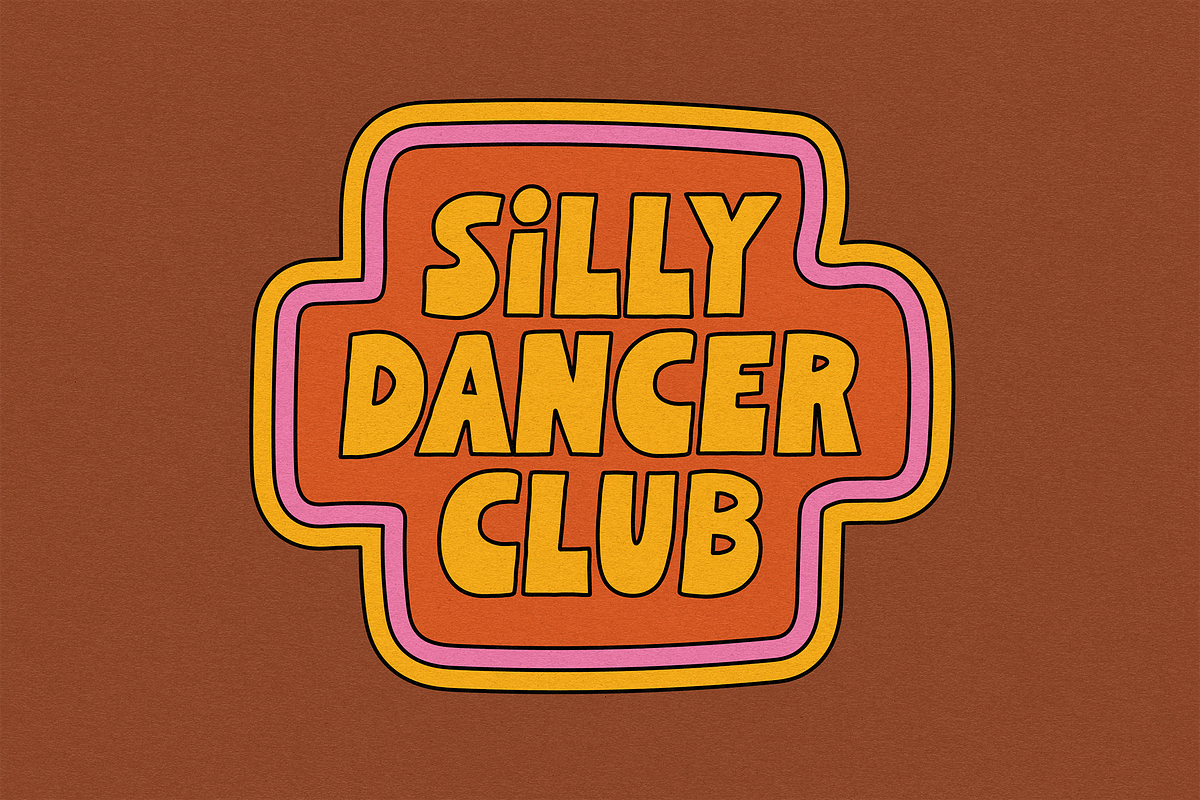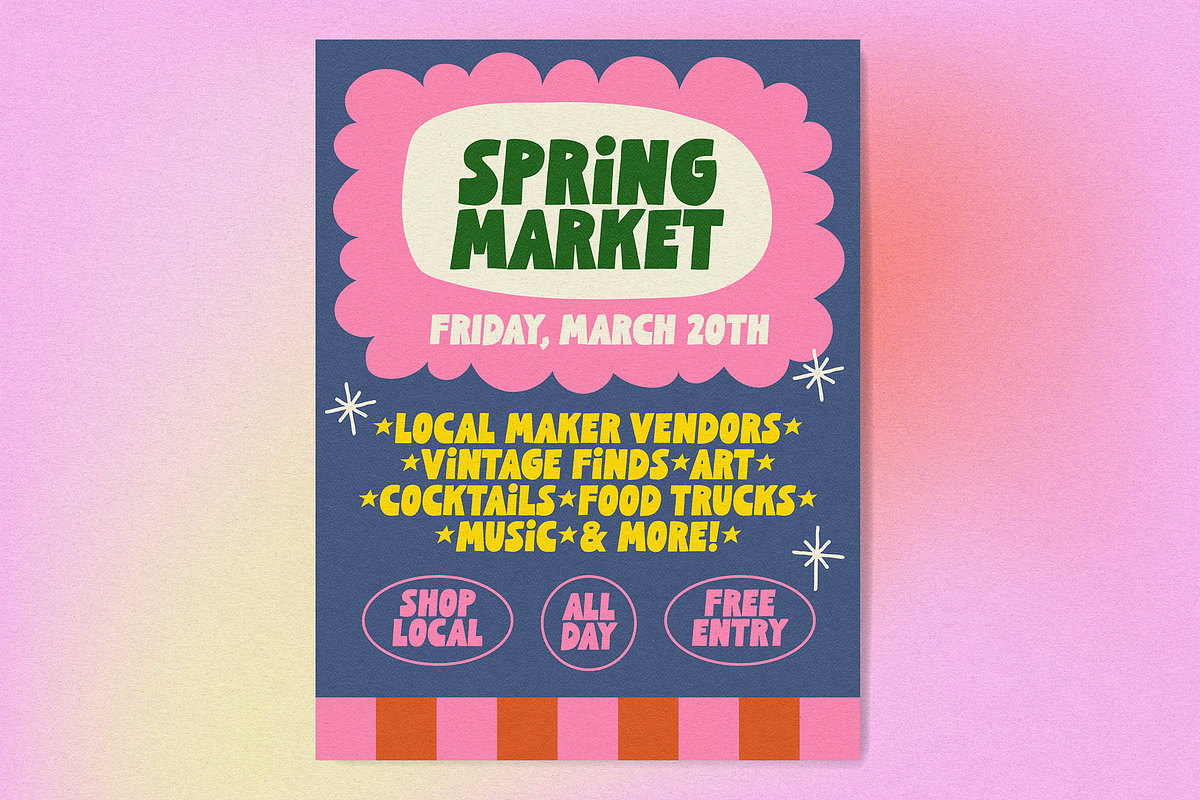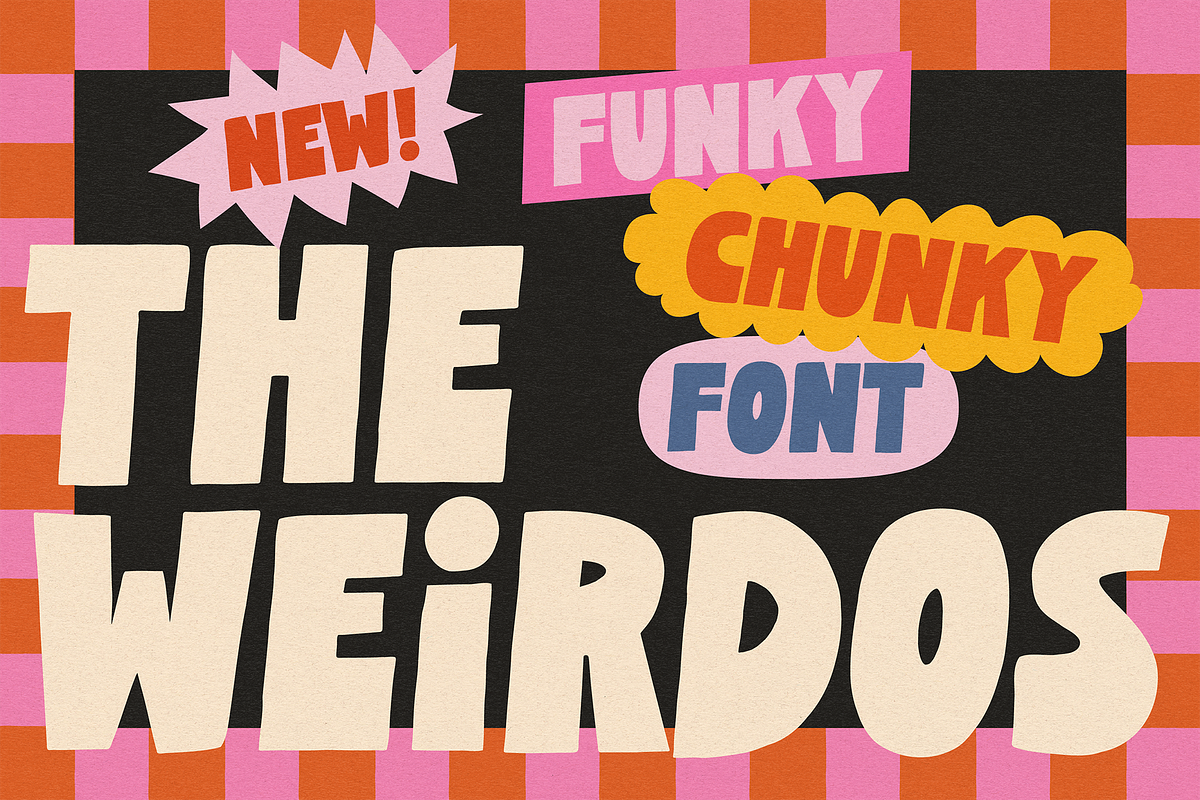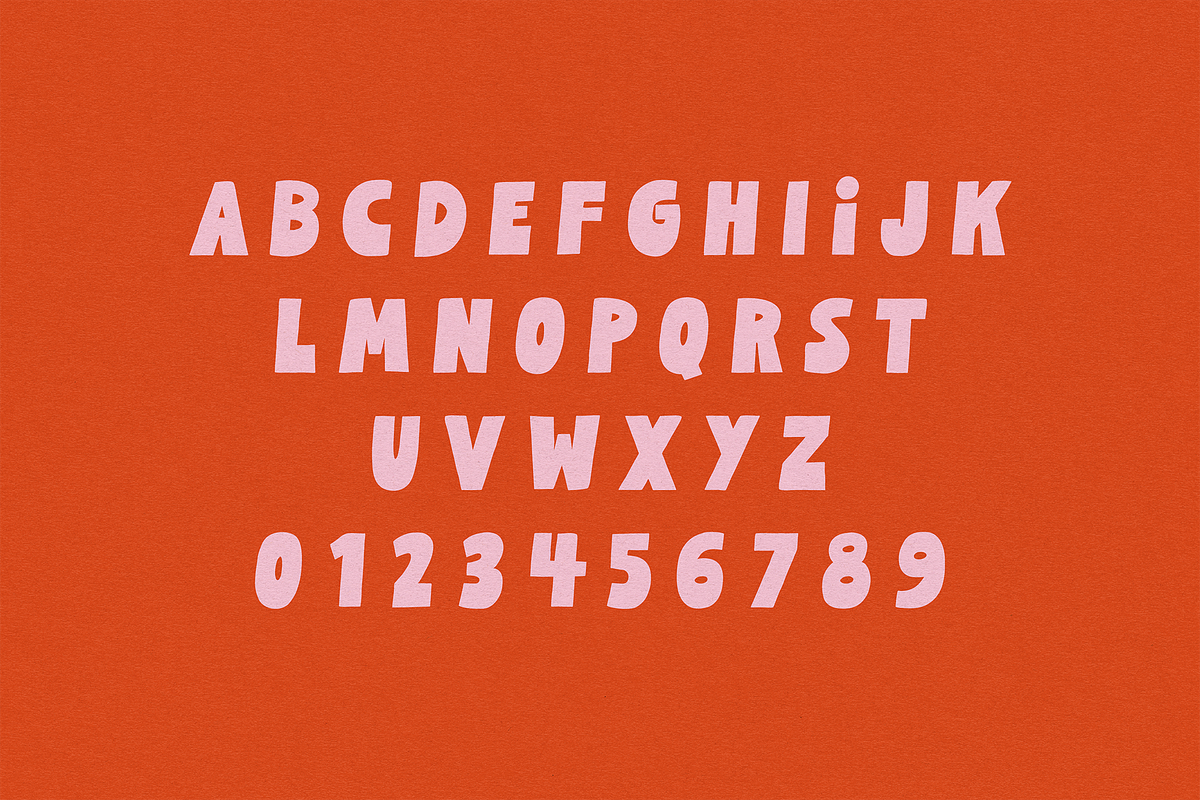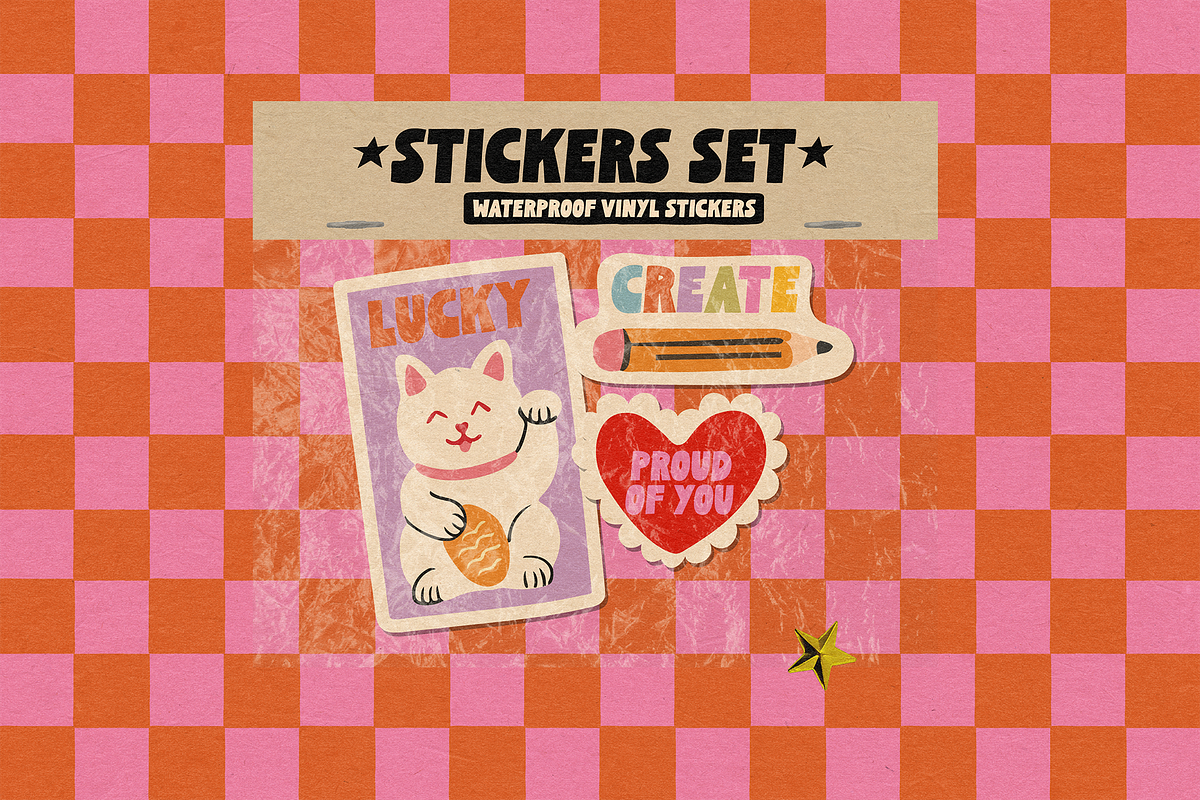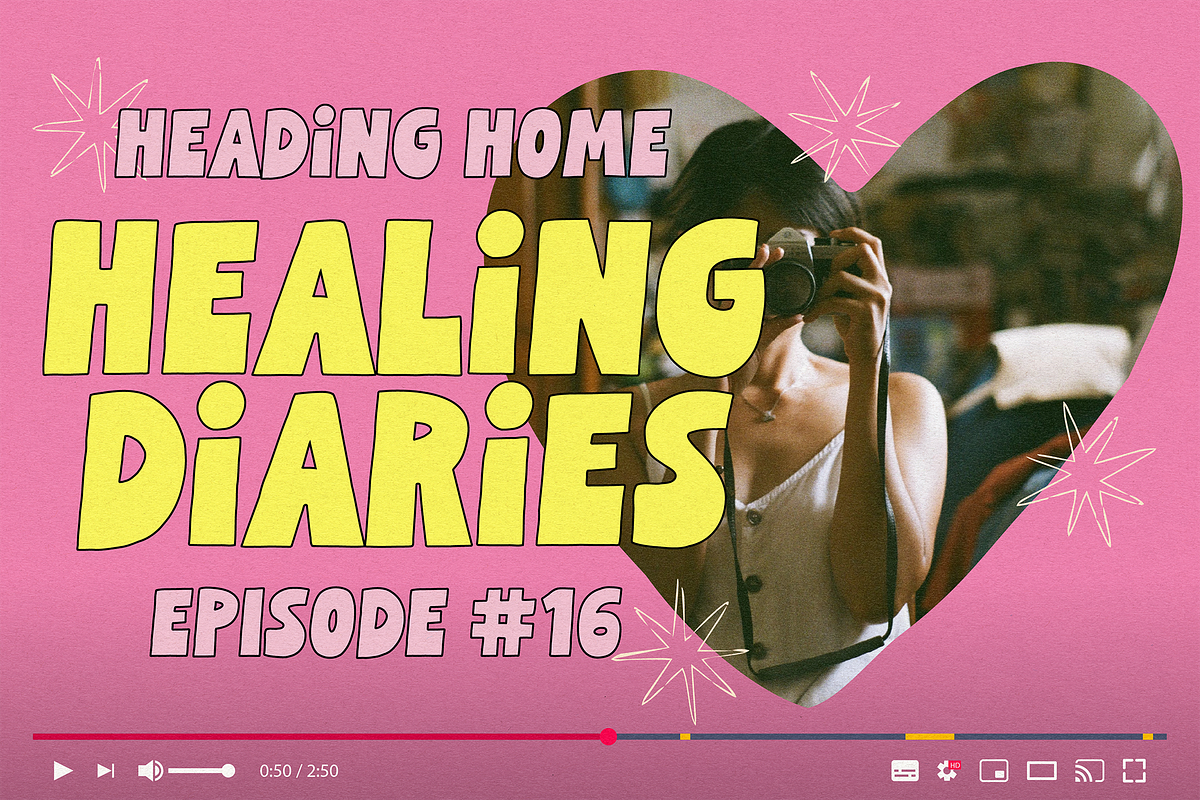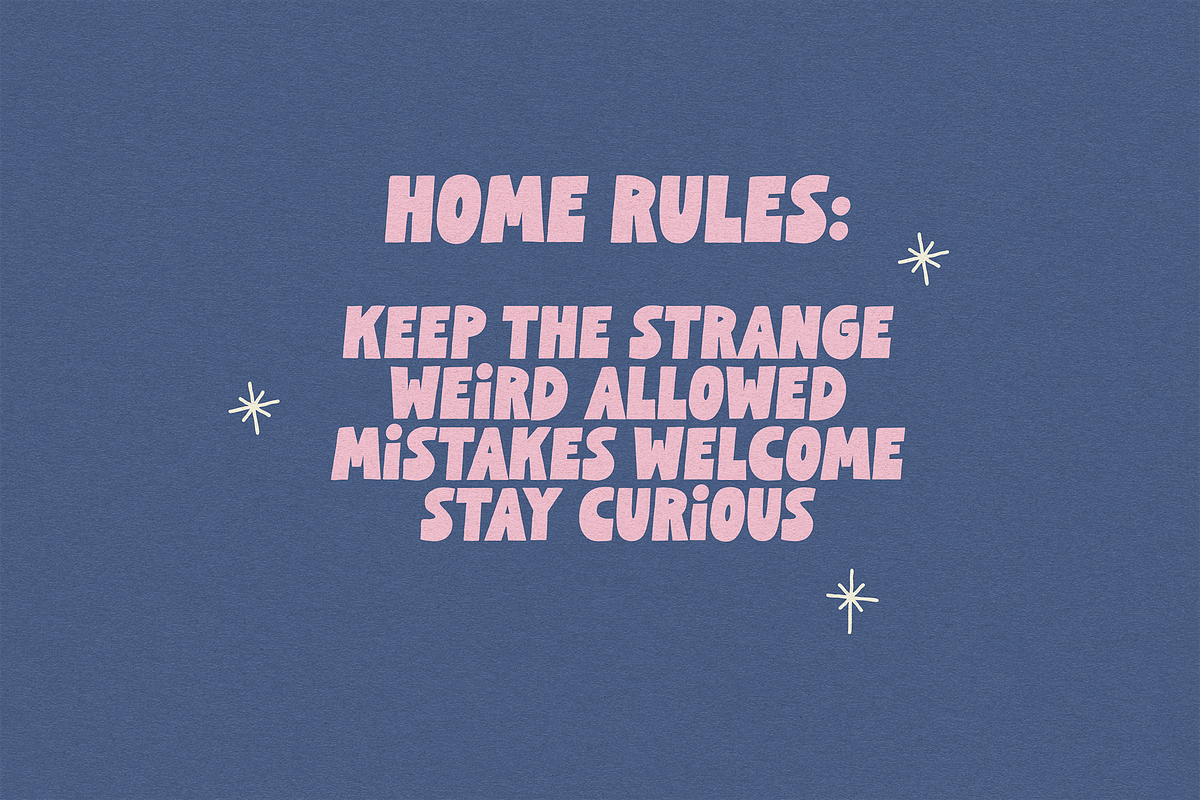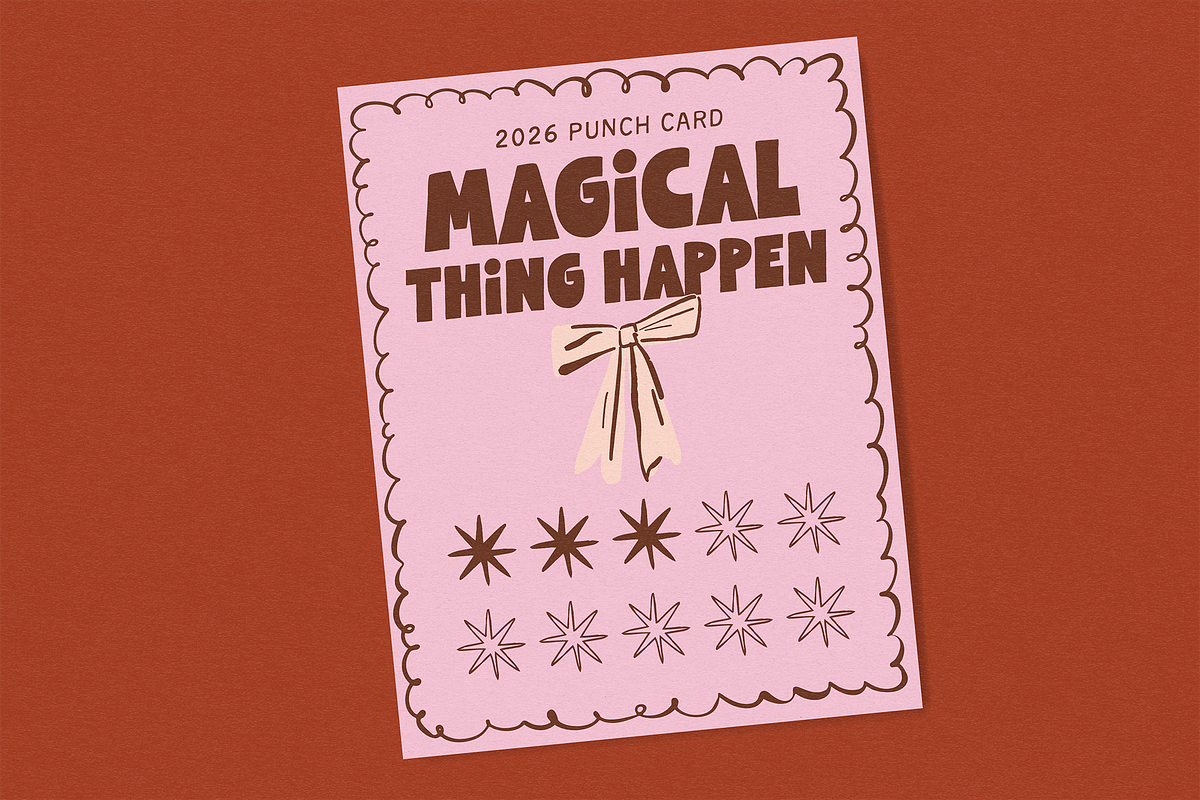
THE WEIRDOS | FUNKY CHUNKY FONT
THE WEIRDOS is a chunky funky display font with tall hand-drawn letters and an organic imperfect style. This playful font features irregular shapes, bold contrast, and a slightly slanted structure that gives it a relaxed, human made look full of personality. Its tall structure and imperfect handmade feel create a unique display font that works beautifully for bold titles, creative projects, and eye-catching graphics.
Perfect for Titles and headlines, stickers and sticker packs, YouTube thumbnails and covers, funky branding, social media graphics, quotes and phrases and more!!